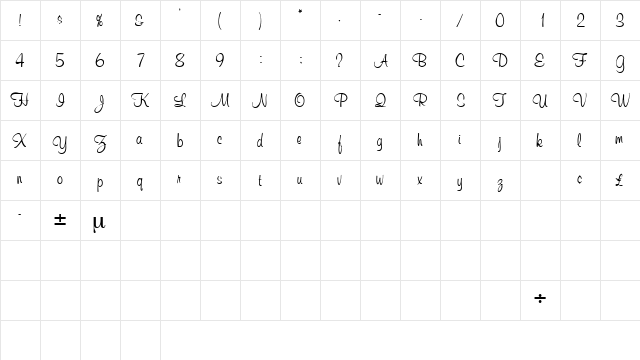
ChromaScriptSSK Regular Font Preview
ChromaScriptSSK Regular
Design Context for ChromaScriptSSK Typeface
ChromaScriptSSK flows with the natural rhythm of handwritten lettering, making it ideal for designs that call for warmth and personal expression.
Font Pairing: Combine ChromaScriptSSK with a simple geometric sans for maximum contrast — the tension between flowing curves and clean structure is a classic typographic pairing.
Pro Tip: Use ChromaScriptSSK for short runs of text — names, titles, or taglines. Extended body copy in script faces tires the eye quickly.